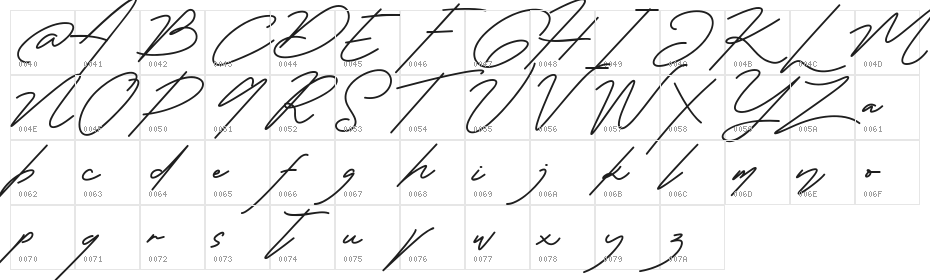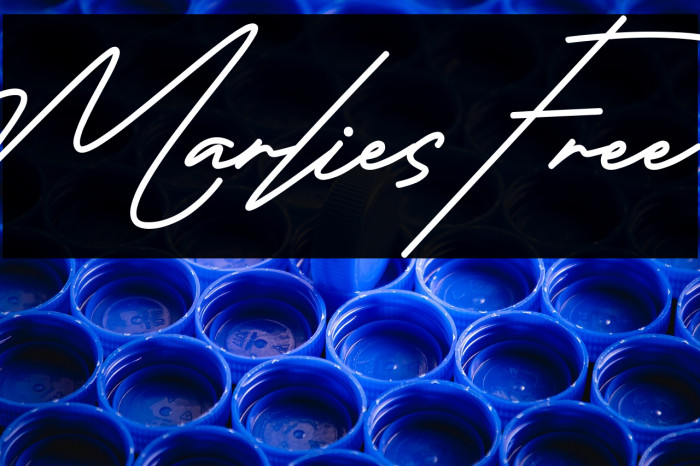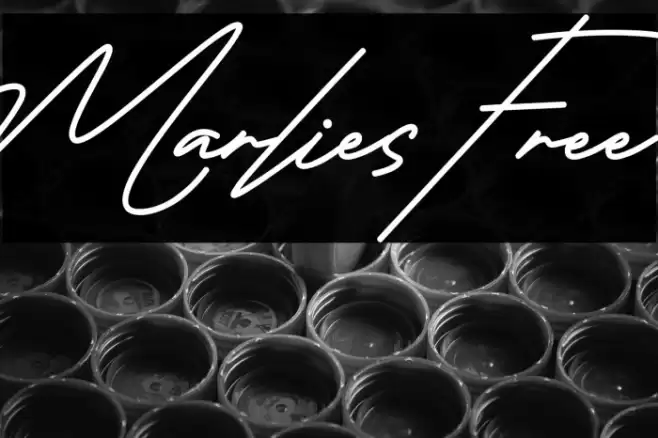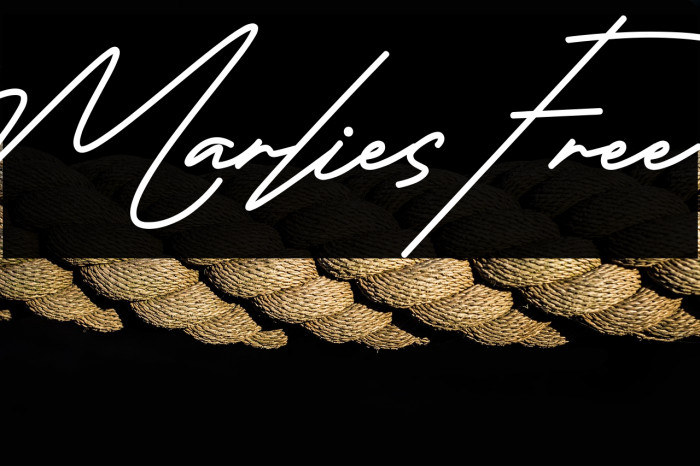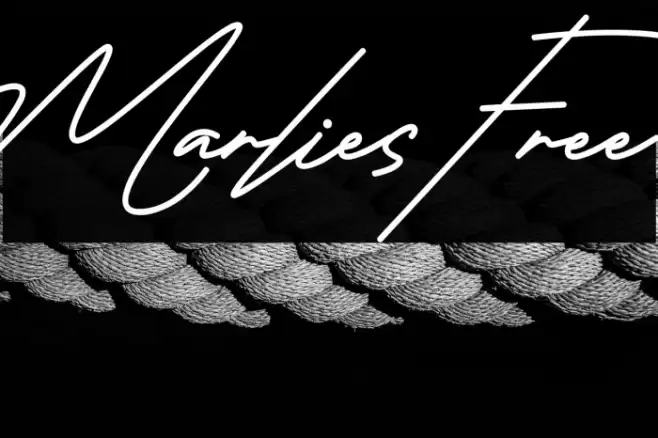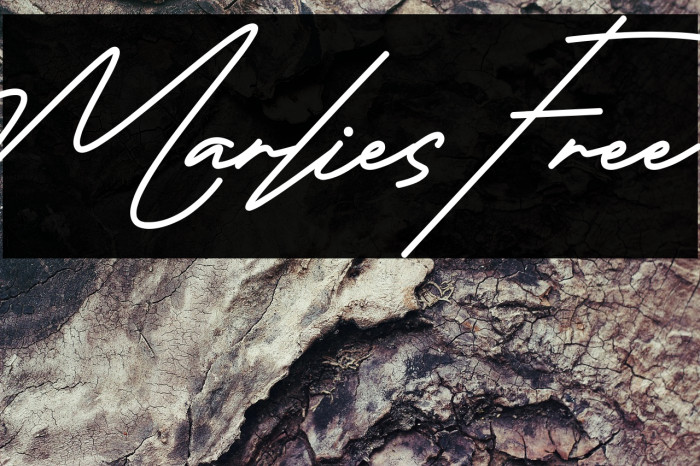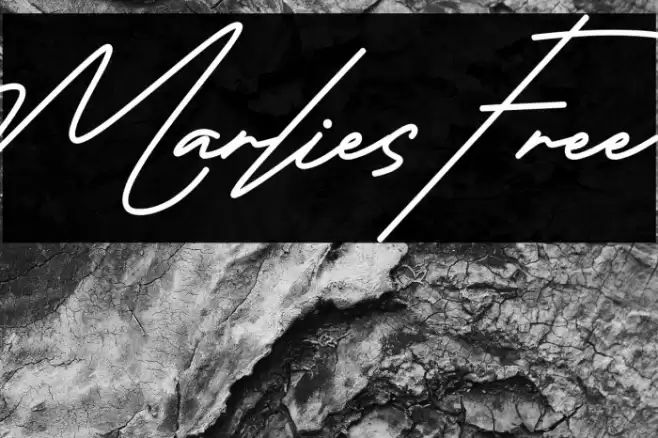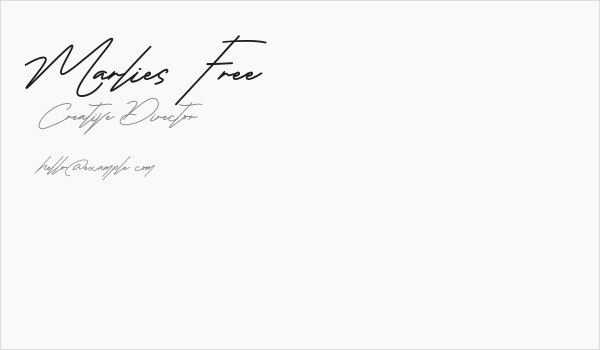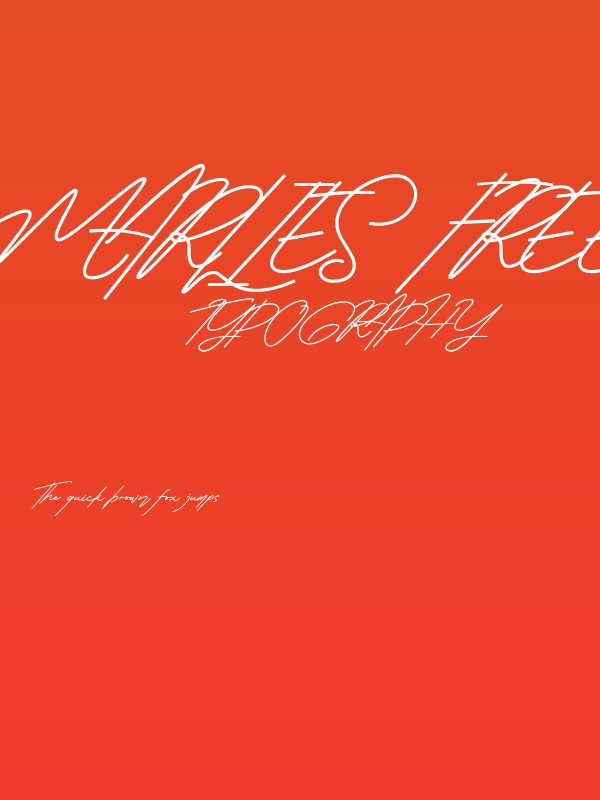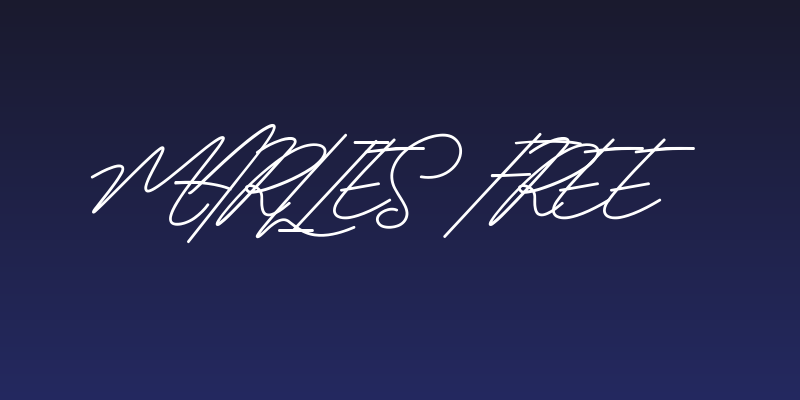
Marlies Free Font
Marlies Free Description
This font exudes a dynamic and expressive character with its fluid, cursive style. The letters are interconnected, creating a seamless flow that mimics natural handwriting. The strokes vary in thickness, adding a lively and personal touch to the text. The uppercase letters are elegantly elongated, while the lowercase letters maintain a consistent rhythm and balance. This font captures the essence of handwritten notes, offering a personal and artistic flair. Its unique style makes it suitable for projects that require a touch of elegance and individuality.
| Proposed Projects | Ideal for wedding invitations, personal branding, artistic projects, and greeting cards. |